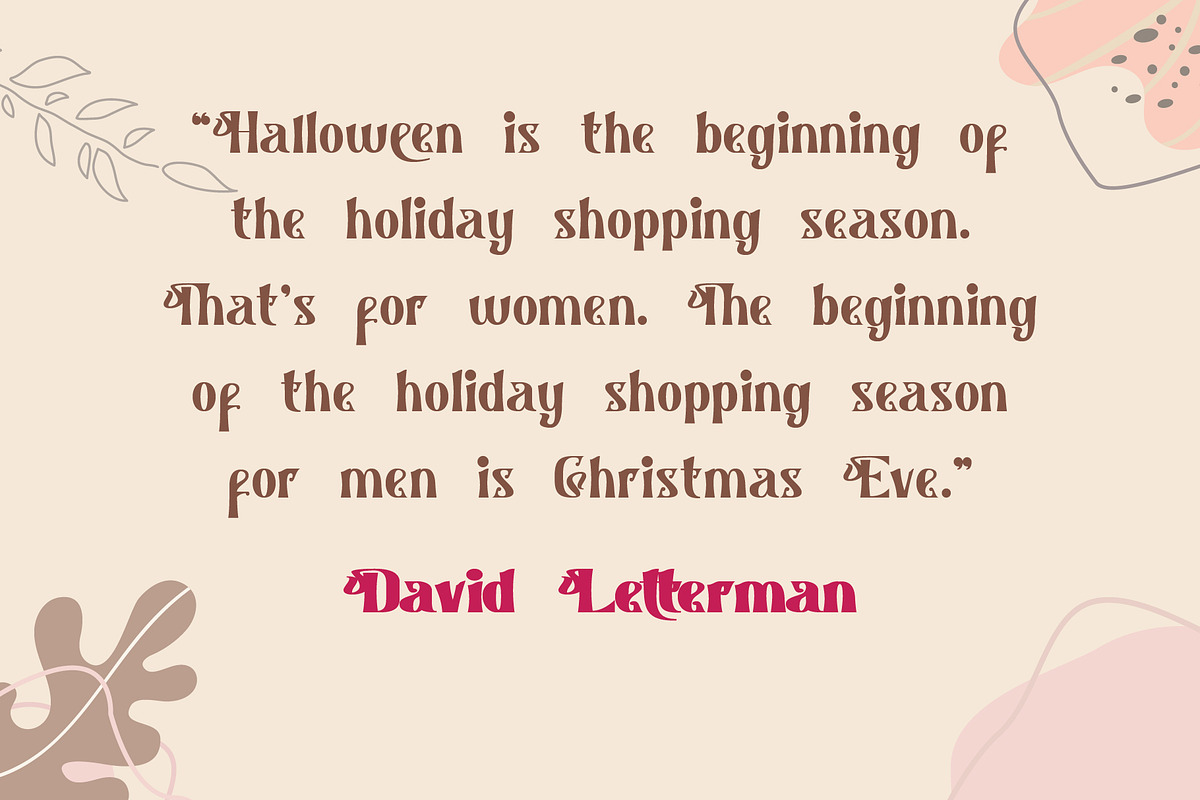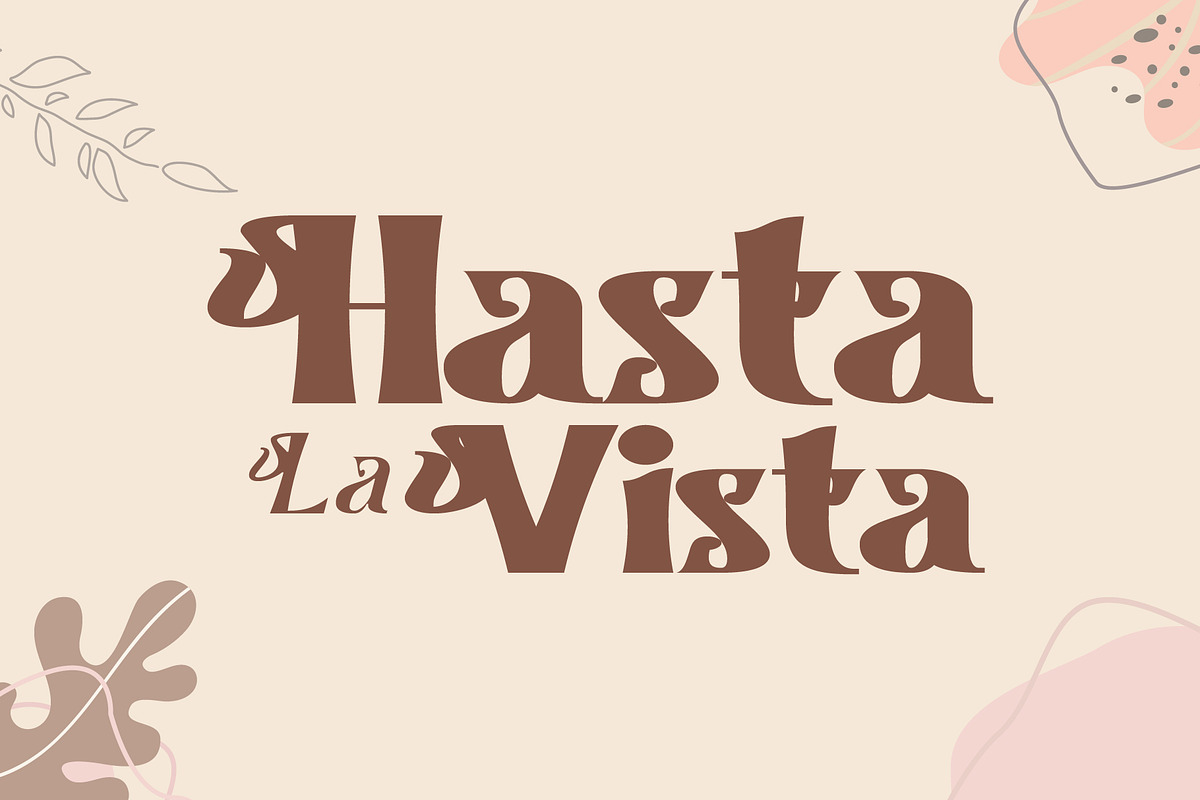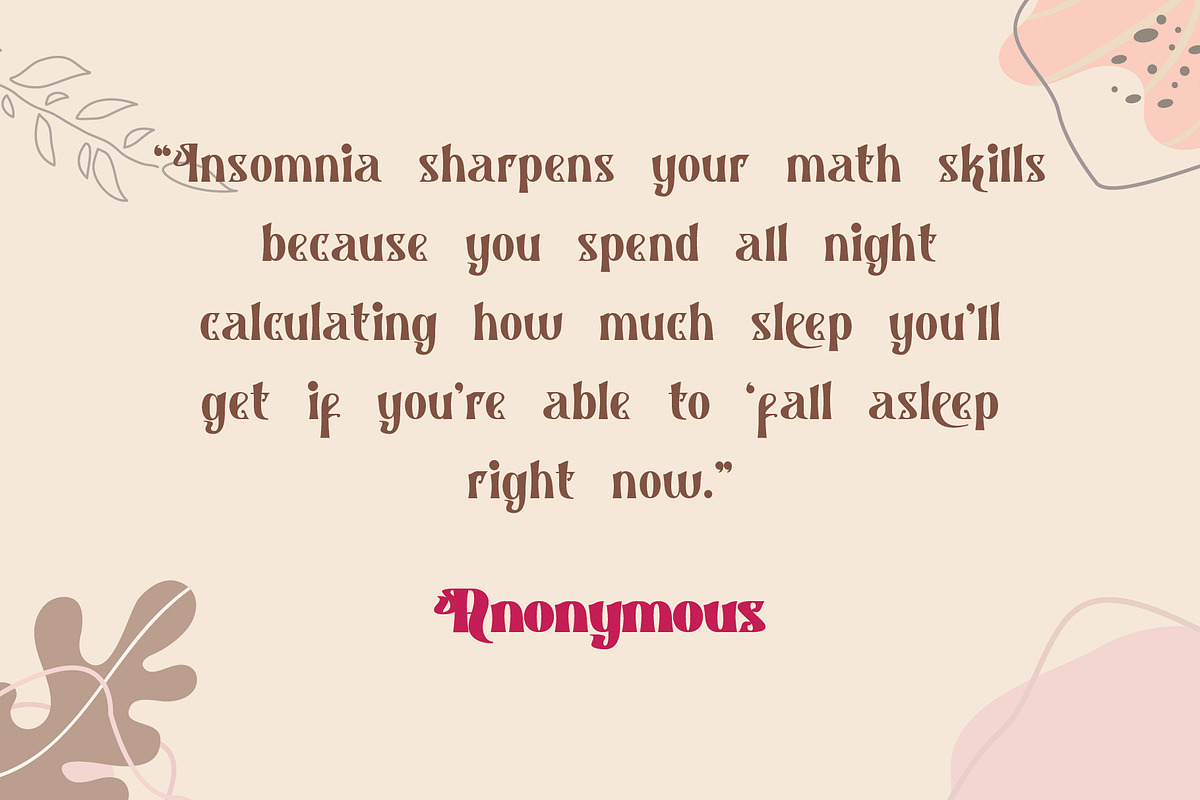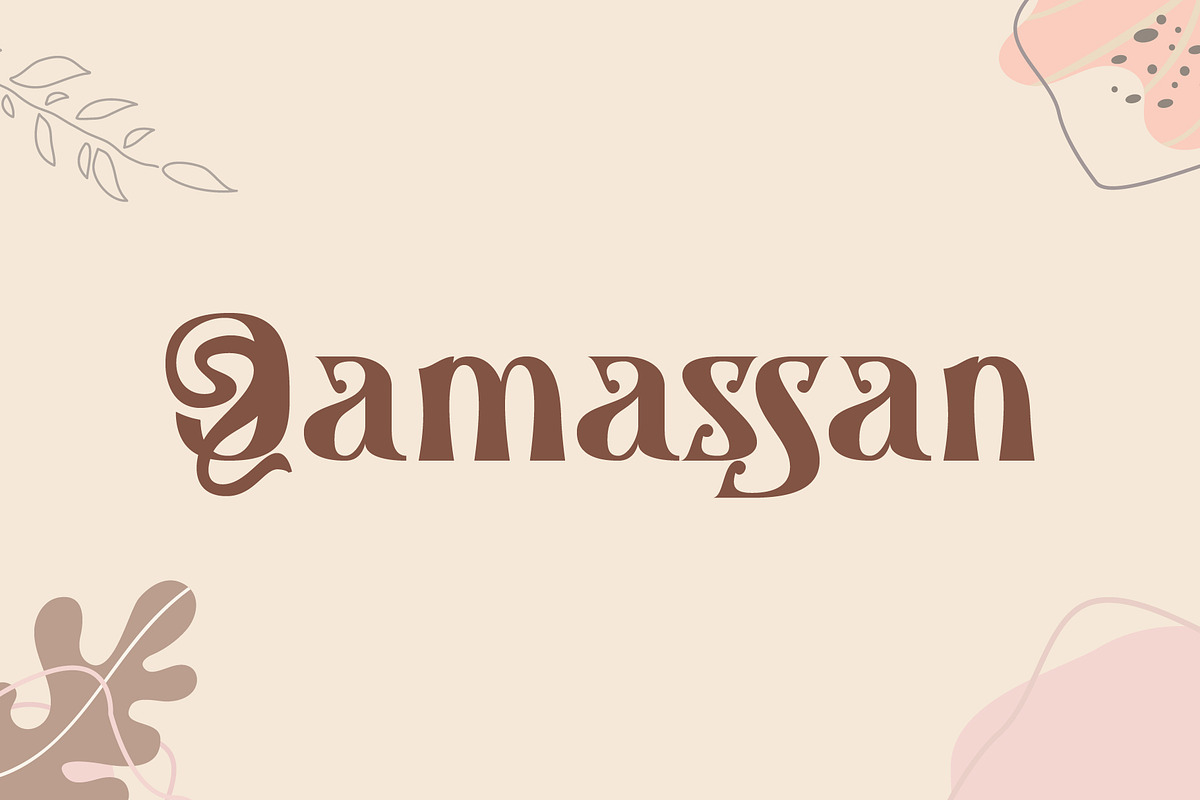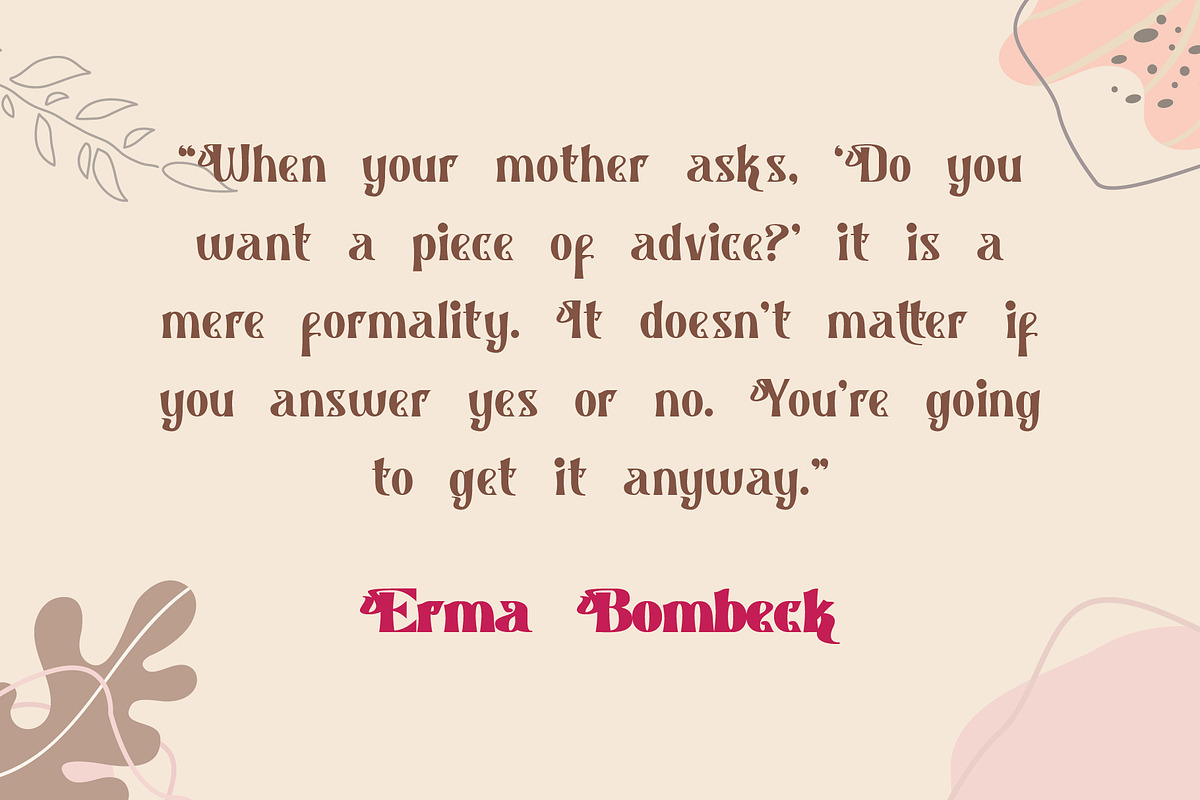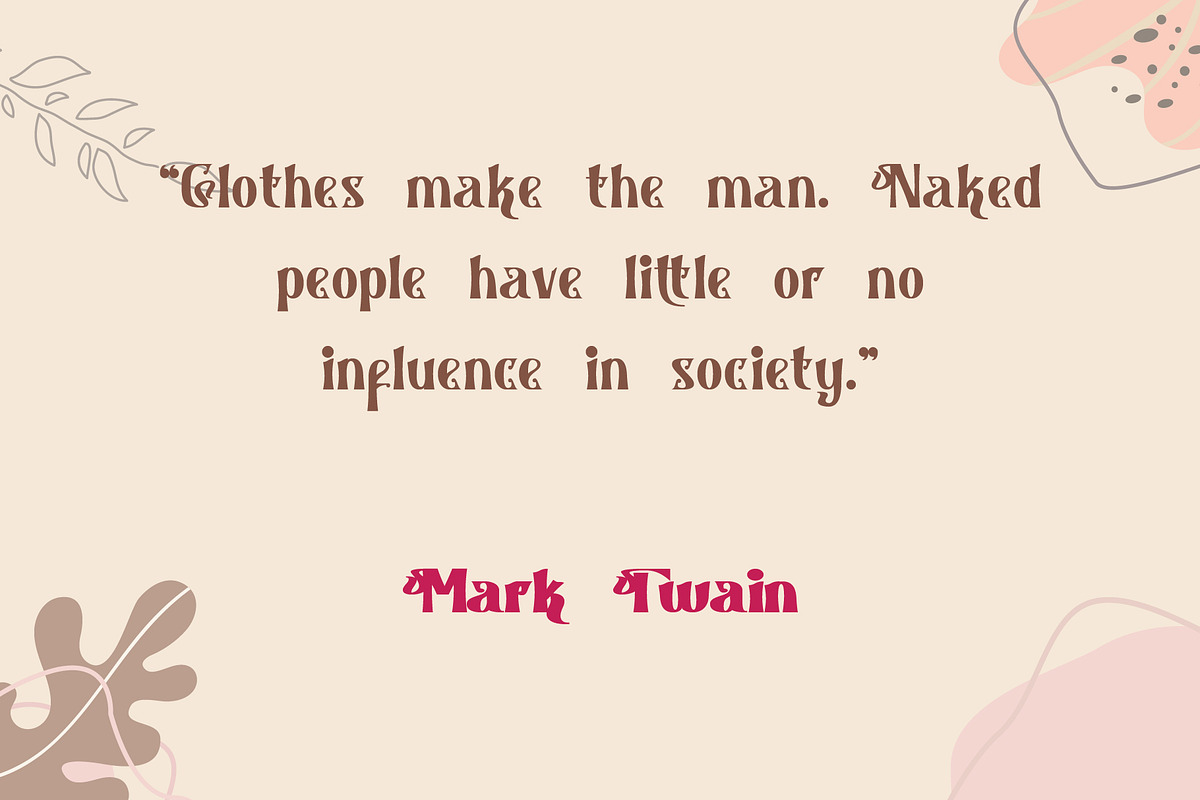
Qamassan Luxury Retro Vintage+BONUS
QAMASSAN is a Bohemian Vintage Typeface. It's retro, bold, and playful. Perfect if you need a dose of fun in your project. QAMASSAN fits perfectly into those nostalgic moodboards and vintage logos. It come with a unique lower and uppercase plus numbers, punctuation & multilingual letters.